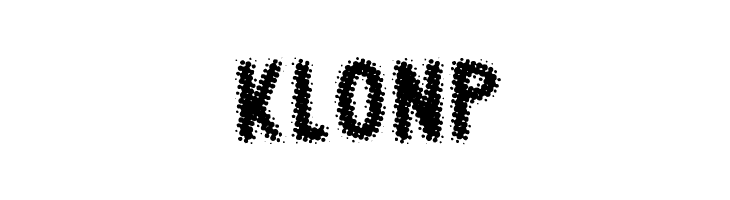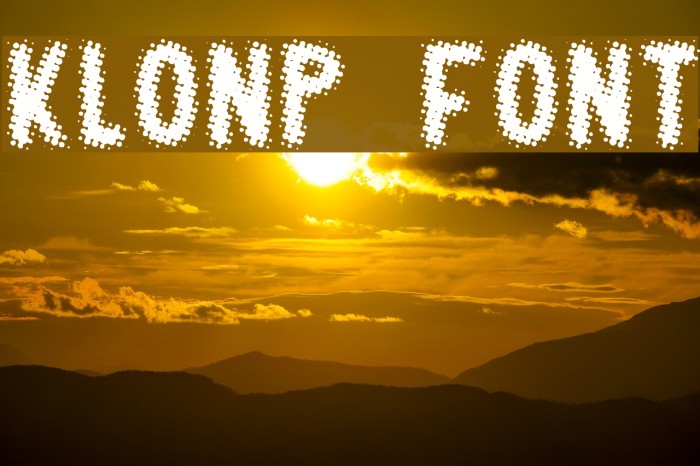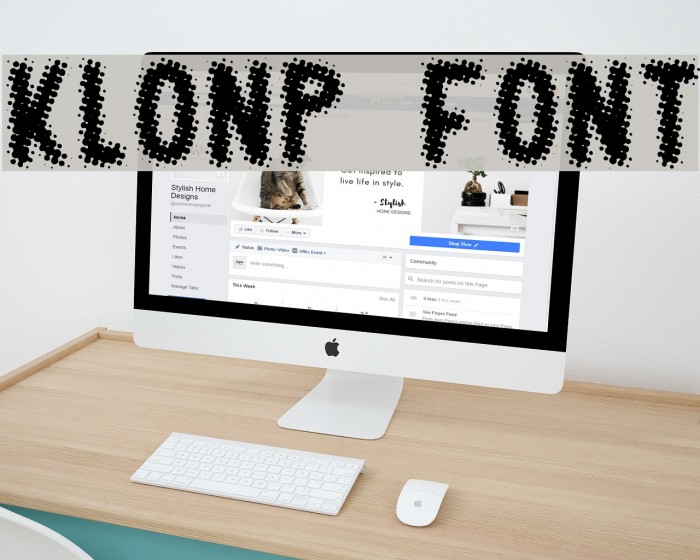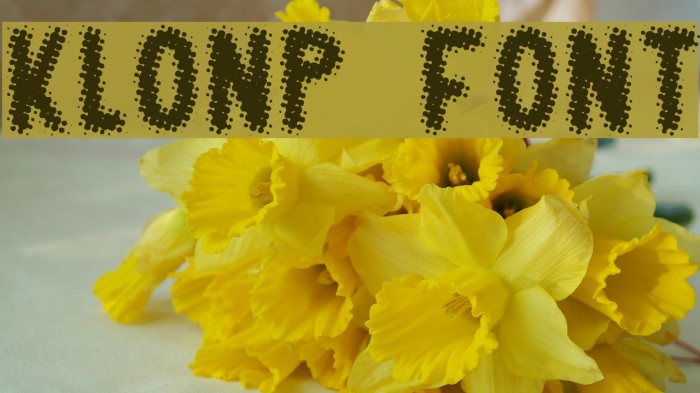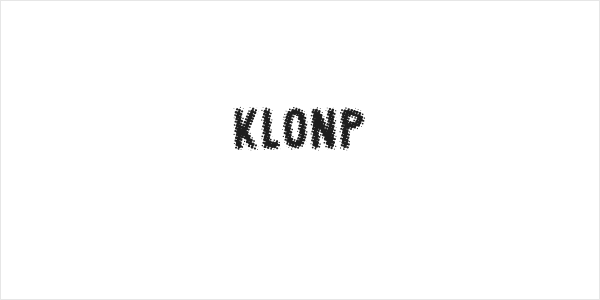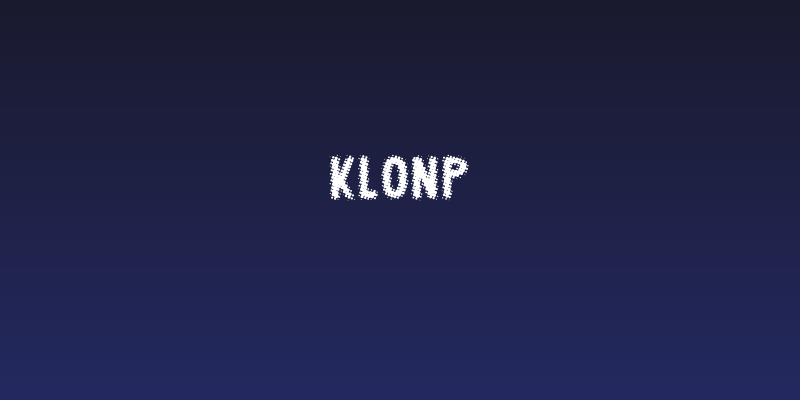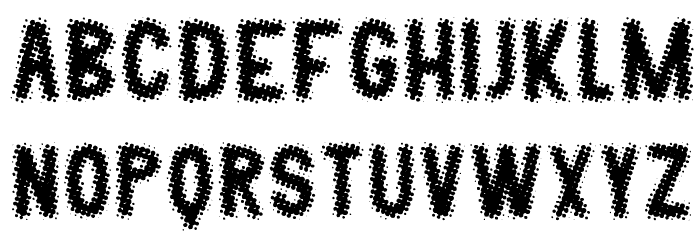
KLONP Font
KLONP Description
This font features a bold and dynamic style with a unique dotted texture that adds a sense of movement and energy. The uppercase letters are robust and slightly condensed, giving them a strong presence. The dotted pattern creates a playful yet edgy appearance, making it stand out in any design. The font maintains a consistent weight throughout, ensuring readability while adding a decorative touch. Its distinctive look makes it suitable for projects that require a bold statement or a modern twist.